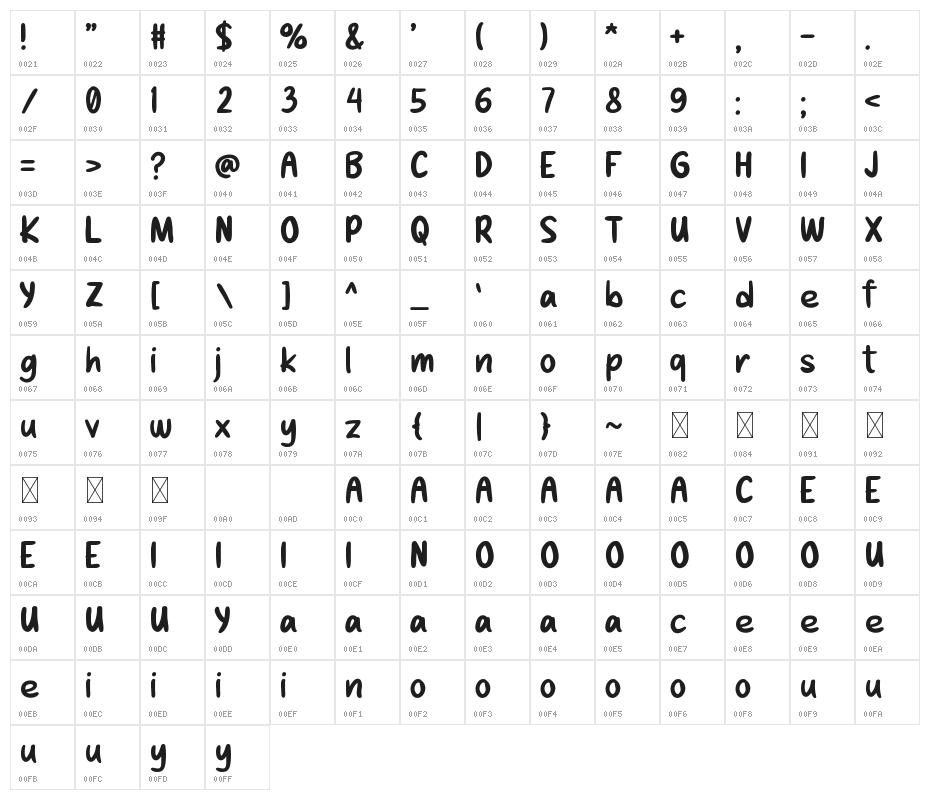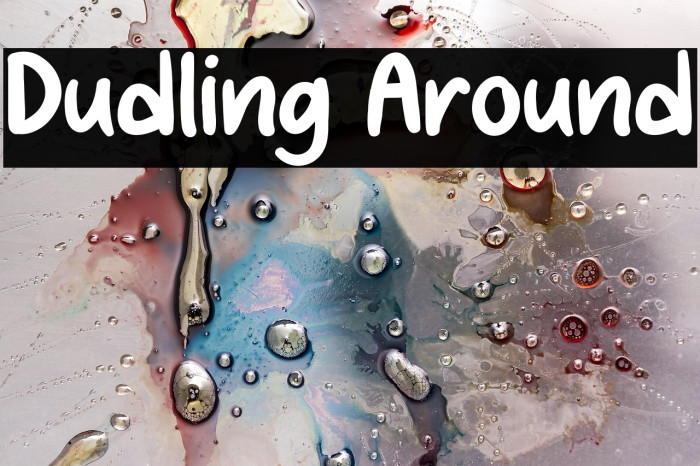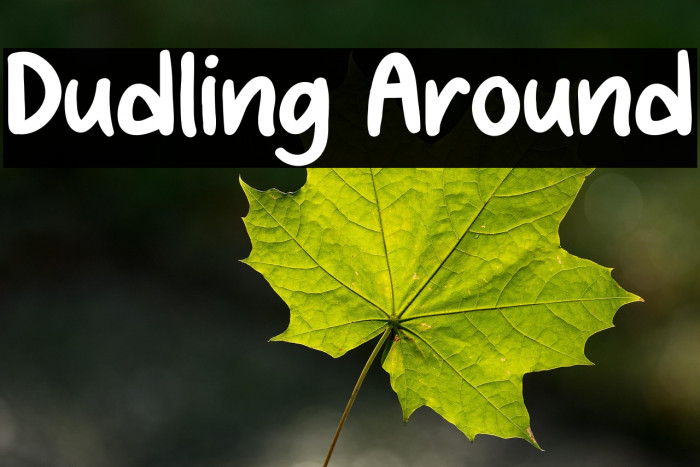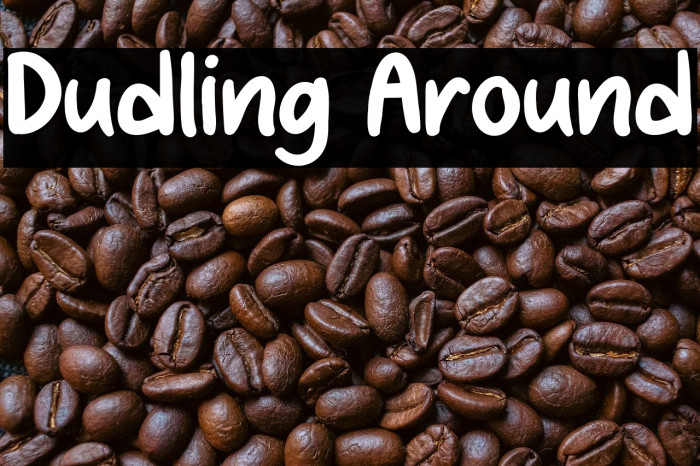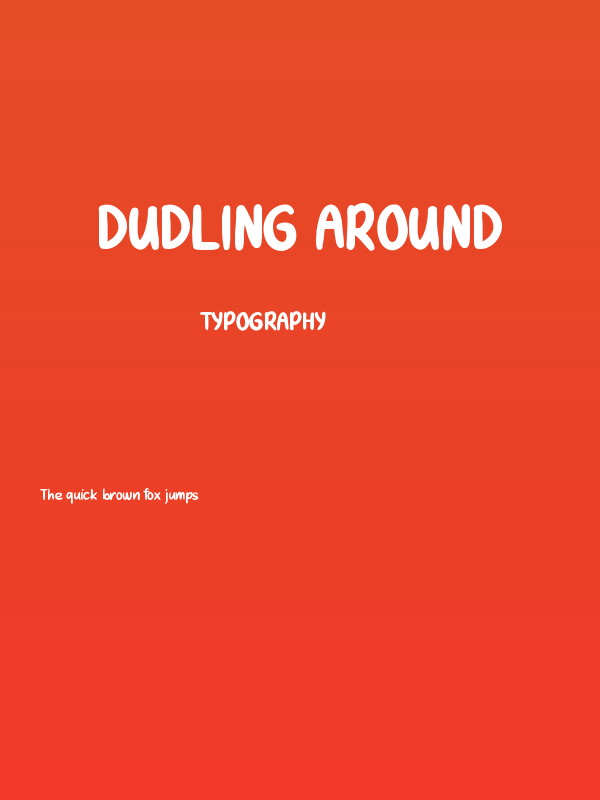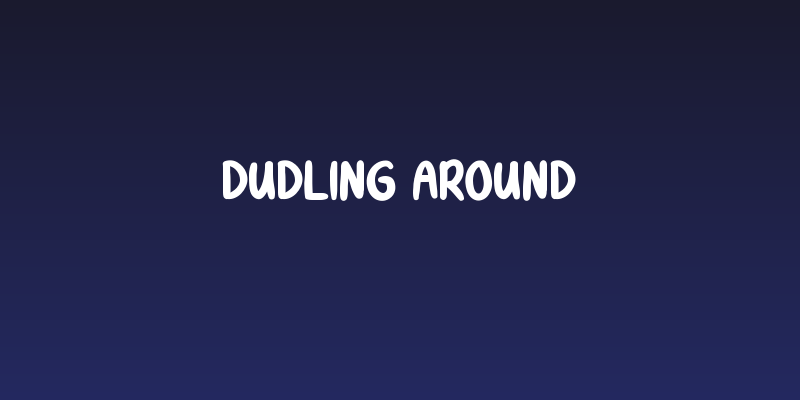
Dudling Around Font
| Caso d'uso | Headlines, Logos, Informal Text |
| Progetti proposti | Ideal for children's books, playful branding, casual invitations, and creative posters. |